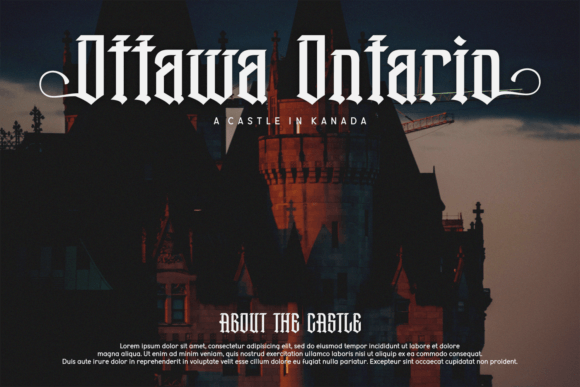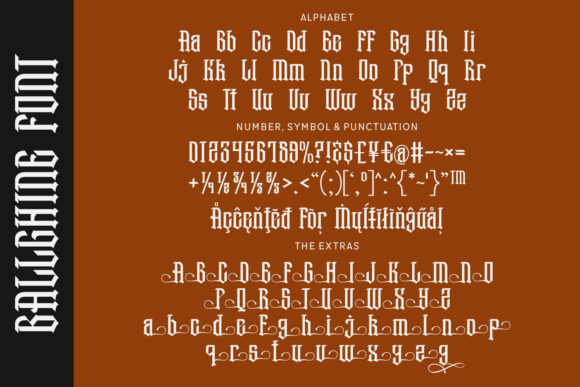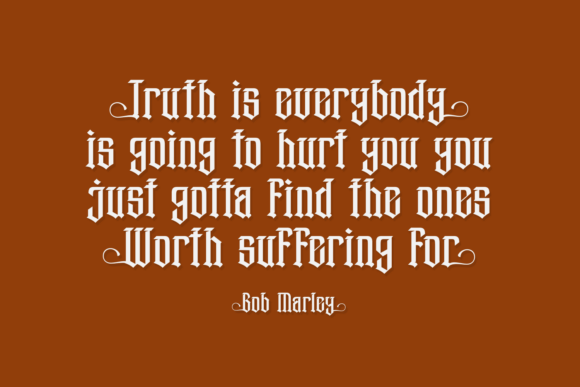
Introducing Ballghine Font: The Ultimate Blackletter Typeface for Elegant Designs
Are you a designer or crafter looking for a font that exudes elegance and sophistication? Look no further than Ballghine Font, a bold blackletter typeface that is sure to elevate your designs to the next level. With its stylish swirls and decorative lines, known as swashes, Ballghine Font is perfect for creating dramatic and eye-catching designs that are reminiscent of medieval times.
What is Ballghine Font?
Ballghine Font is a bold blackletter font that features a classic, medieval look that is sure to add a touch of elegance to any design. Its stylish swirls and decorative lines, known as swashes, give it a unique and distinctive look that sets it apart from other fonts. Whether you’re looking to create a logo, poster, or invitation, Ballghine Font is the perfect choice.
Key Features of Ballghine Font
- Bold Blackletter Style: Ballghine Font features a bold blackletter style that is perfect for creating dramatic and eye-catching designs.
- Stylish Swirls and Swashes: The font’s stylish swirls and decorative lines, known as swashes, add a touch of elegance and sophistication to any design.
- Classic Medieval Look: Ballghine Font has a classic, medieval look that is perfect for creating designs that are reminiscent of a bygone era.
- Highly Versatile: The font is highly versatile and can be used for a wide range of design projects, from logos and posters to invitations and more.
Uses for Ballghine Font
Ballghine Font is perfect for a wide range of design projects, including:
- Logos: The font’s bold blackletter style and stylish swirls make it perfect for creating elegant and sophisticated logos.
- Posters: Ballghine Font is ideal for creating eye-catching posters that are sure to grab attention.
- Invitations: The font’s classic medieval look makes it perfect for creating elegant and sophisticated invitations for weddings, formal events, and more.
- Signage: Ballghine Font can be used for signage, including store signs, directional signs, and more.
Tips for Using Ballghine Font
Here are a few tips for using Ballghine Font in your designs:
- Use it sparingly: Ballghine Font is a bold font, so it’s best to use it sparingly to avoid overwhelming your design.
- Pair it with a simple font: Pair Ballghine Font with a simple font to create contrast and add visual interest to your design.
- Experiment with different colors: Ballghine Font looks great in a variety of colors, so don’t be afraid to experiment and find the perfect color for your design.
Ballghine Font is a bold blackletter font that is perfect for creating elegant and sophisticated designs. With its stylish swirls and decorative lines, known as swashes, it’s sure to add a touch of elegance to any design. Whether you’re a designer or crafter, Ballghine Font is a great choice for a wide range of design projects, from logos and posters to invitations and more.
Overall, Ballghine Font is a great choice for designers and crafters looking for a bold and elegant font that is perfect for creating dramatic and eye-catching designs.